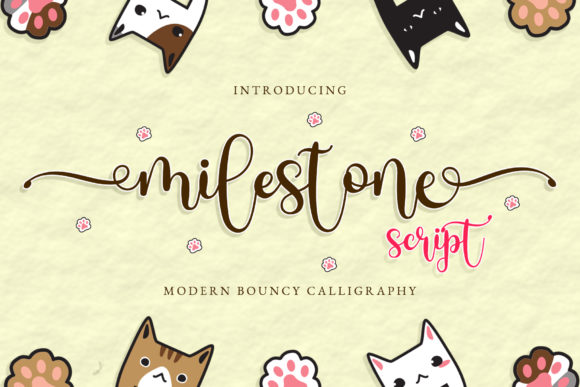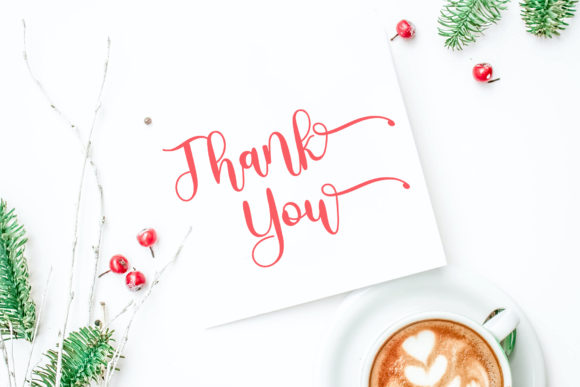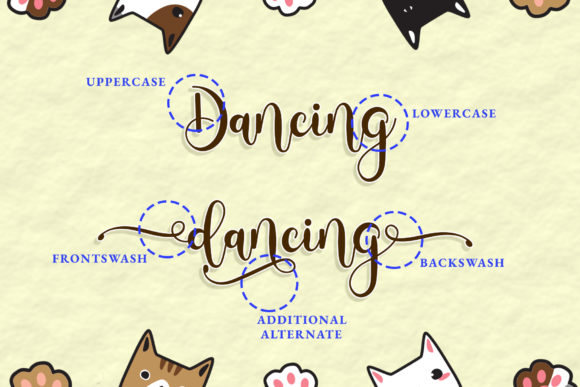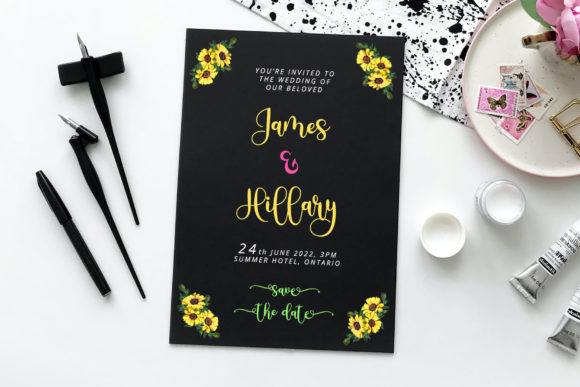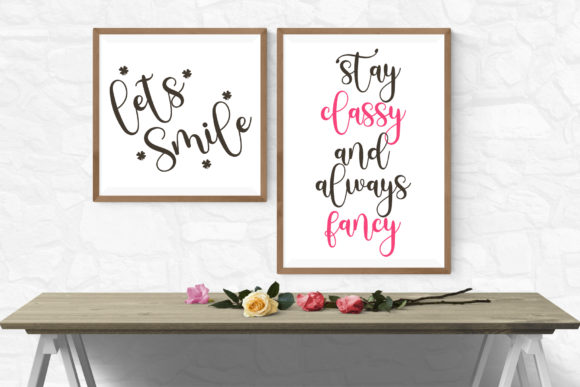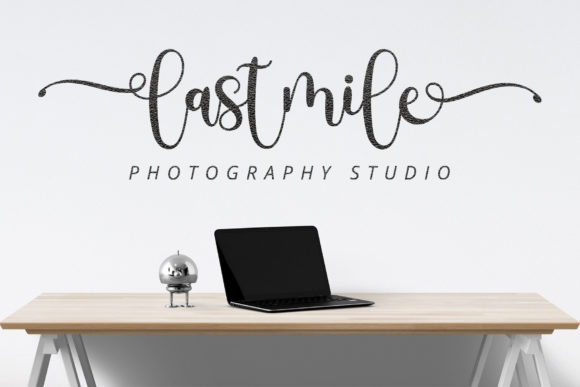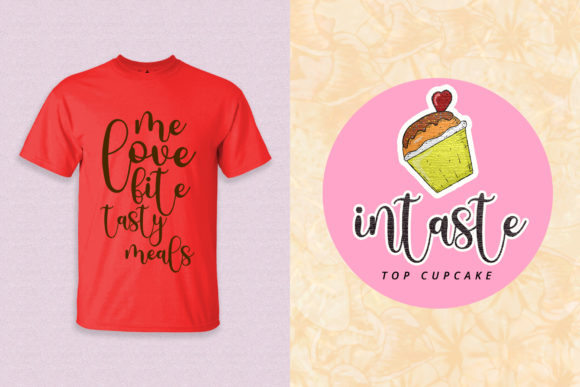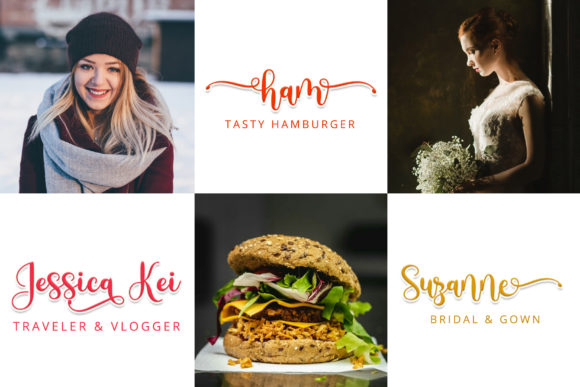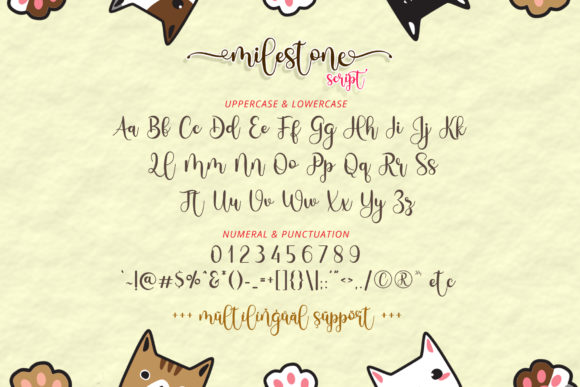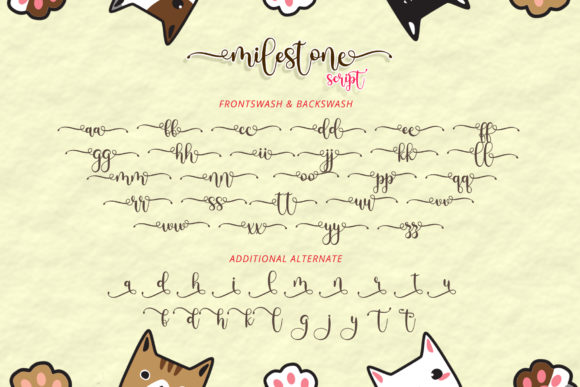
Milestone Font
About Milestone Font
Milestone is a delicate and sweet handwritten font that effortlessly blends sweetness and cuteness with modernity. Its unique charm makes it an attention-grabbing choice for a wide range of designs, making it a versatile addition to your font collection.
The delicate strokes and flowing curves of Milestone give it a soft and gentle feel, making it perfect for creating a warm and inviting atmosphere in your designs. Whether you’re working on social media content, blog graphics, or any other digital designs, this font will add a touch of elegance and charm to your creations.
Its sweet and cute appearance also makes Milestone an excellent choice for special occasions, especially for creating wedding invitations, greeting cards, and party invitations. Its modern twist adds a contemporary touch to traditional events, making them feel fresh and unique.
Milestone’s versatility extends to branding and logo design as well. Its captivating style can help you create memorable and eye-catching logos that stand out from the crowd. Whether it’s for a brand, a product, or a personal project, this font will add a touch of playfulness and personality to your identity.
Moreover, Milestone’s catchiness also makes it an ideal option for creating eye-catching signage, labels, and packaging designs. Its ability to draw attention and convey a friendly message makes it an excellent choice for any product that wants to communicate with its audience in a warm and inviting manner.
In summary, Milestone is a delicate and sweet handwritten font that effortlessly blends sweetness and cuteness with modernity. Its catchy nature and versatility make it suitable for a wide range of designs, from social media content to wedding invitations and branding projects. Embrace the charm of Milestone and watch it enhance your designs with its warmth and personality.